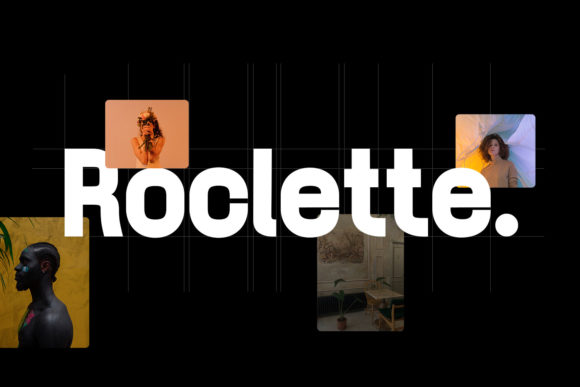
Welcome to the realm of visual intrigue, where aesthetics meet functionality in perfect harmony. We proudly introduce Roclette, a sans serif font family that exudes power, style, and versatility. This meticulously crafted masterpiece boasts controlled letterforms, a spectrum of weights, and modern touches that command attention.
Experience the allure of Roclette, a font family that's not just a collection of letters, but a gateway to endless creative possibilities. Unveil the strength and sophistication of your designs, whether you're crafting captivating logos, fashioning elegant headlines, or captivating audiences with your posters.
Roclette's versatility shines brightest in its ability to elevate any project. Delve into a world where imagination takes flight, and your designs soar to unprecedented heights. This font family empowers you to experiment with diverse applications, transforming your ideas into stunning realities.
Immerse yourself in the beauty of Roclette, a font family designed to make a lasting impression. Its clean, minimalist lines evoke a sense of simplicity, while its quirky undertones add a touch of playfulness. This harmonious blend ensures readability without sacrificing its captivating charm.
Roclette is more than just a font; it's an extension of your creativity, a blank canvas upon which your artistic vision comes to life. Explore the depths of your imagination and let Roclette guide you toward design excellence. Unleash your inner artist and let your designs speak volumes, leaving an indelible mark on your audience.
With Roclette at your fingertips, you unlock a world of endless possibilities. Be it branding, captivating headlines, thought-provoking captions, engaging paragraphs, or eye-catching posters, Roclette's vast range of weights empowers you to experiment and create designs that resonate with your audience.
Roclette is your gateway to a world of visual storytelling. Its versatility knows no bounds, allowing you to craft designs that captivate, inspire, and leave a lasting impression. Embrace the beauty of Roclette and embark on a creative journey that will redefine your design horizons.